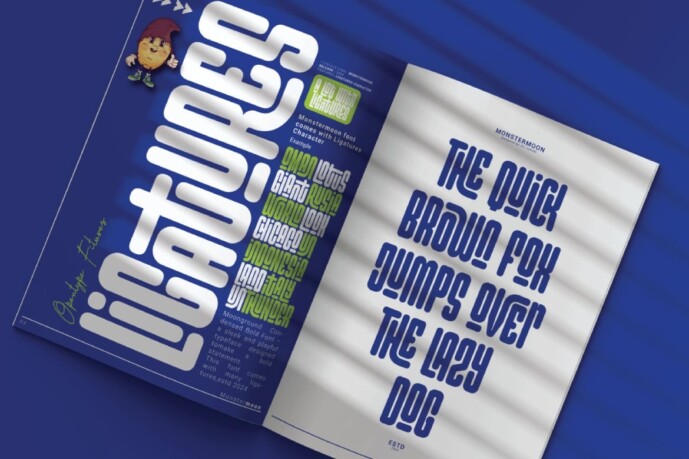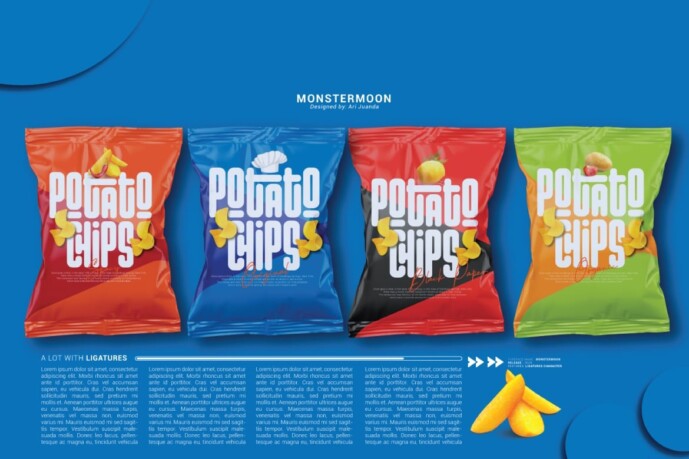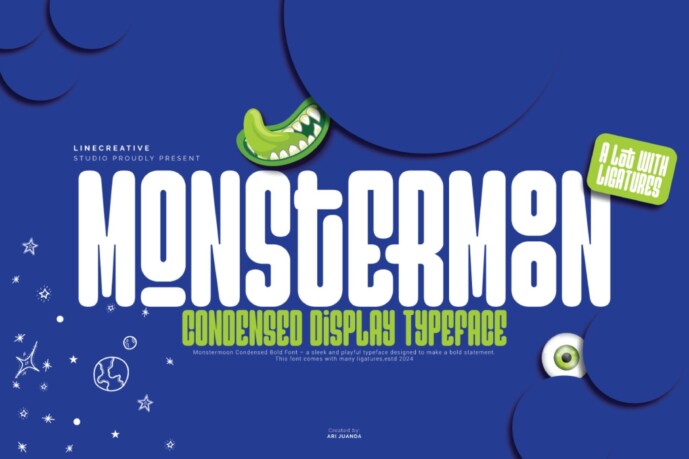
Monstermoon Font
Monstermoon Font – Condensed Bold Font is an elegant and playful font designed to make a bold statement, delivered with many ligatures. The font is a modern and condensed font that features playful curves and dynamic shapes. It is designed with a set of elegant ligatures, adding a unique and fluid connection between the characters.